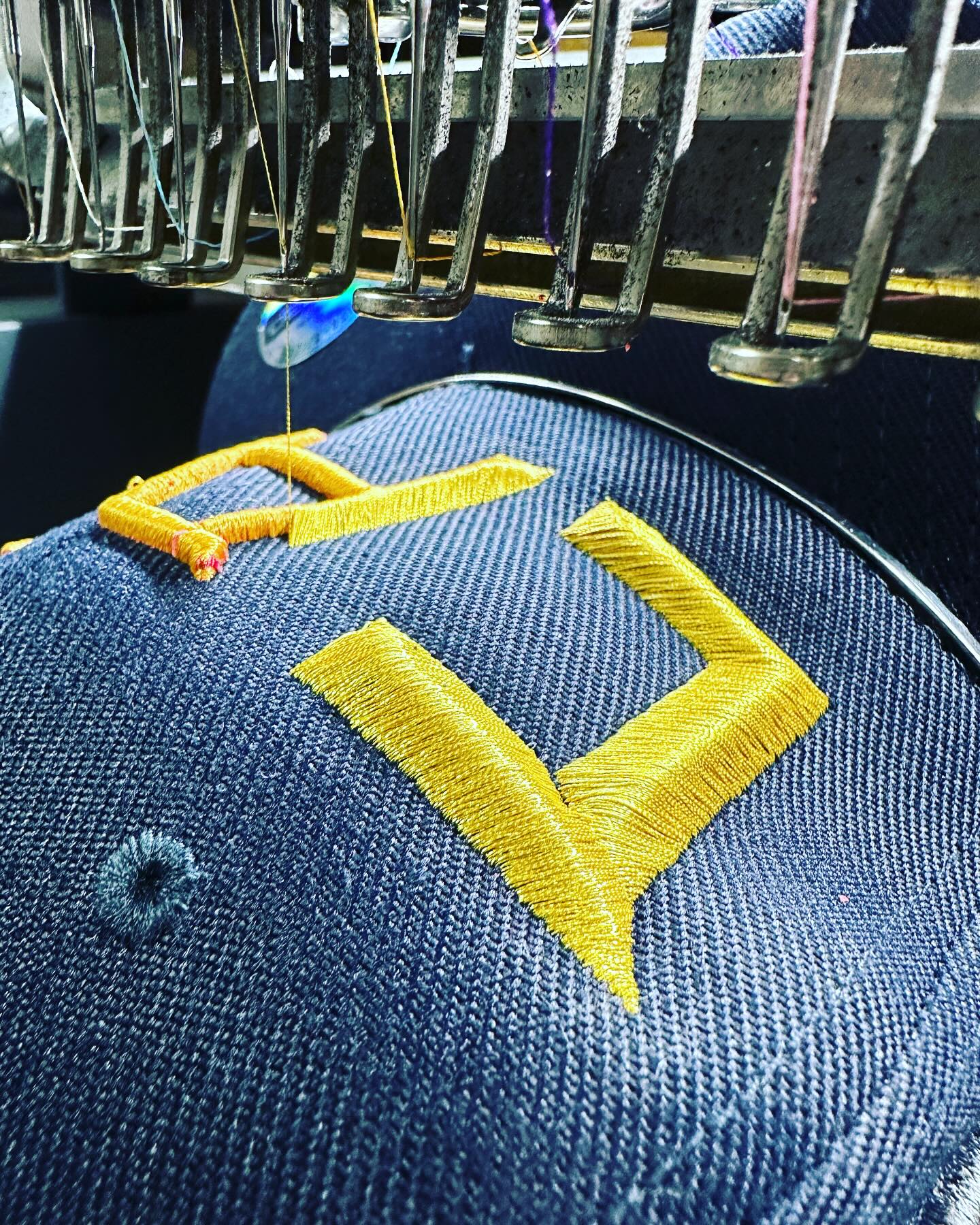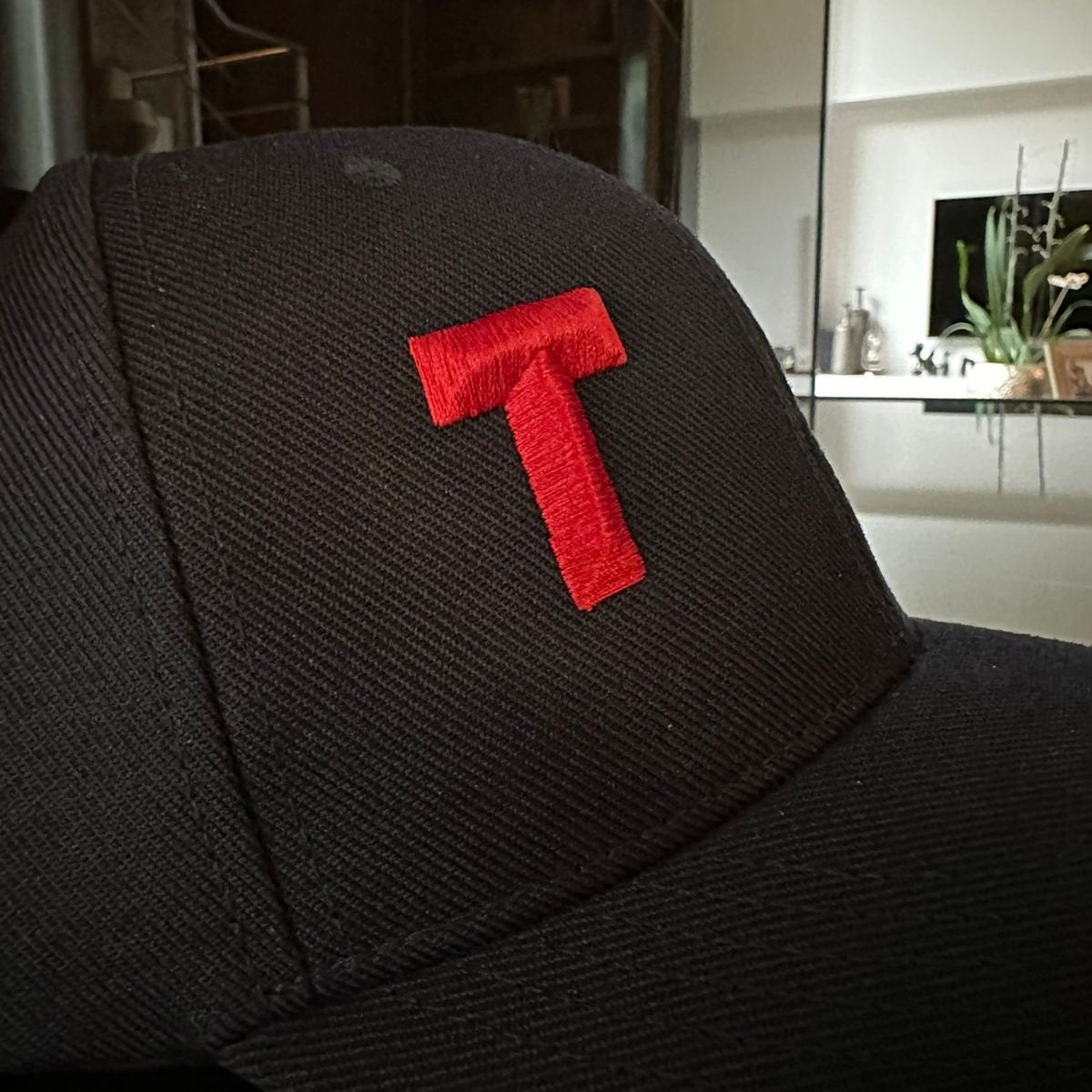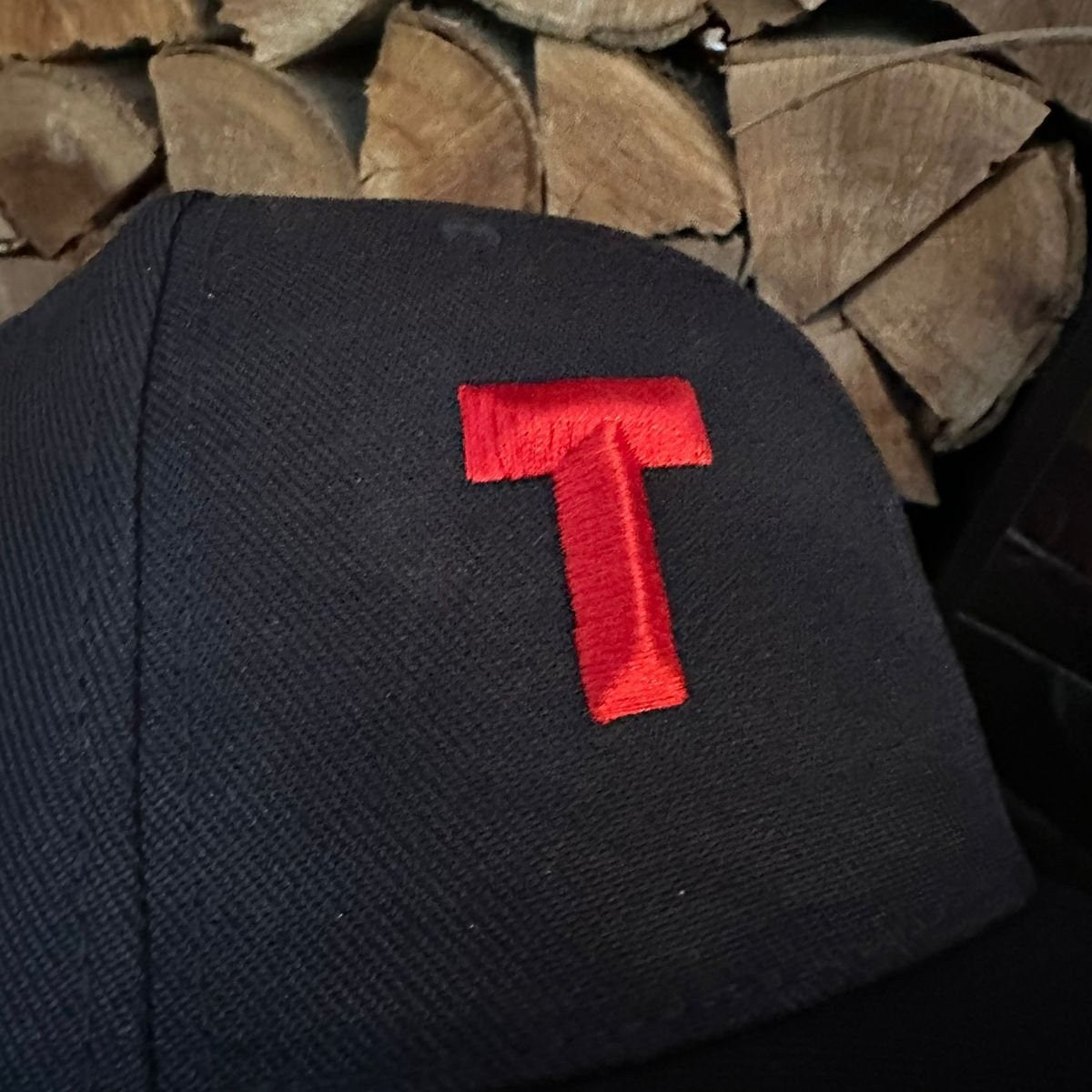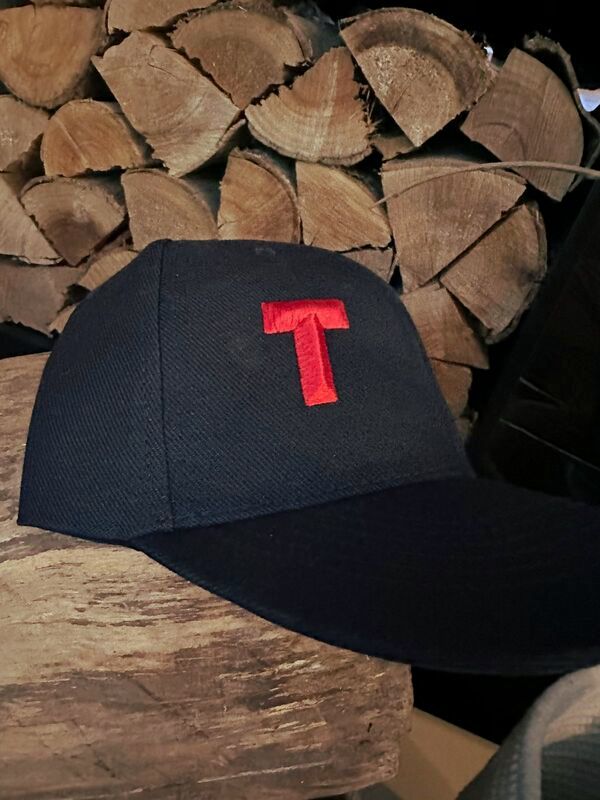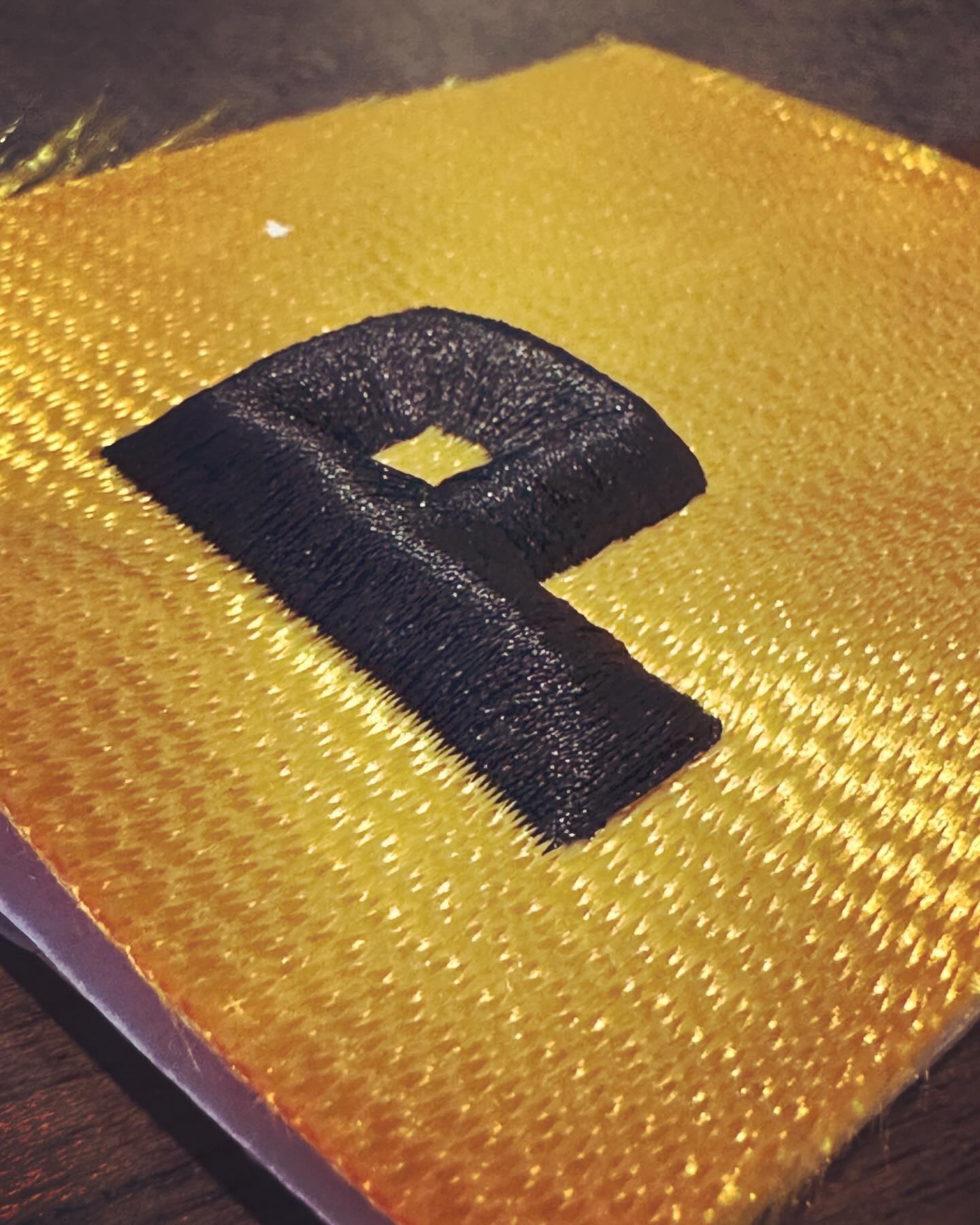
Diamond 3D Puff Font
Shine bright with the Diamond 3D Puff Font, designed for bold embroidery statements! Featuring raised, high-impact black lettering on a gleaming golden base, this font brings luxury and standout detail to hats, patches, jackets, or special projects.
Crafted in Dubai for quality and brilliance, it’s perfect for custom monograms, brand initials, or eye-catching logos.
Add a touch of diamond flair—customize your look with premium 3D puff embroidery!